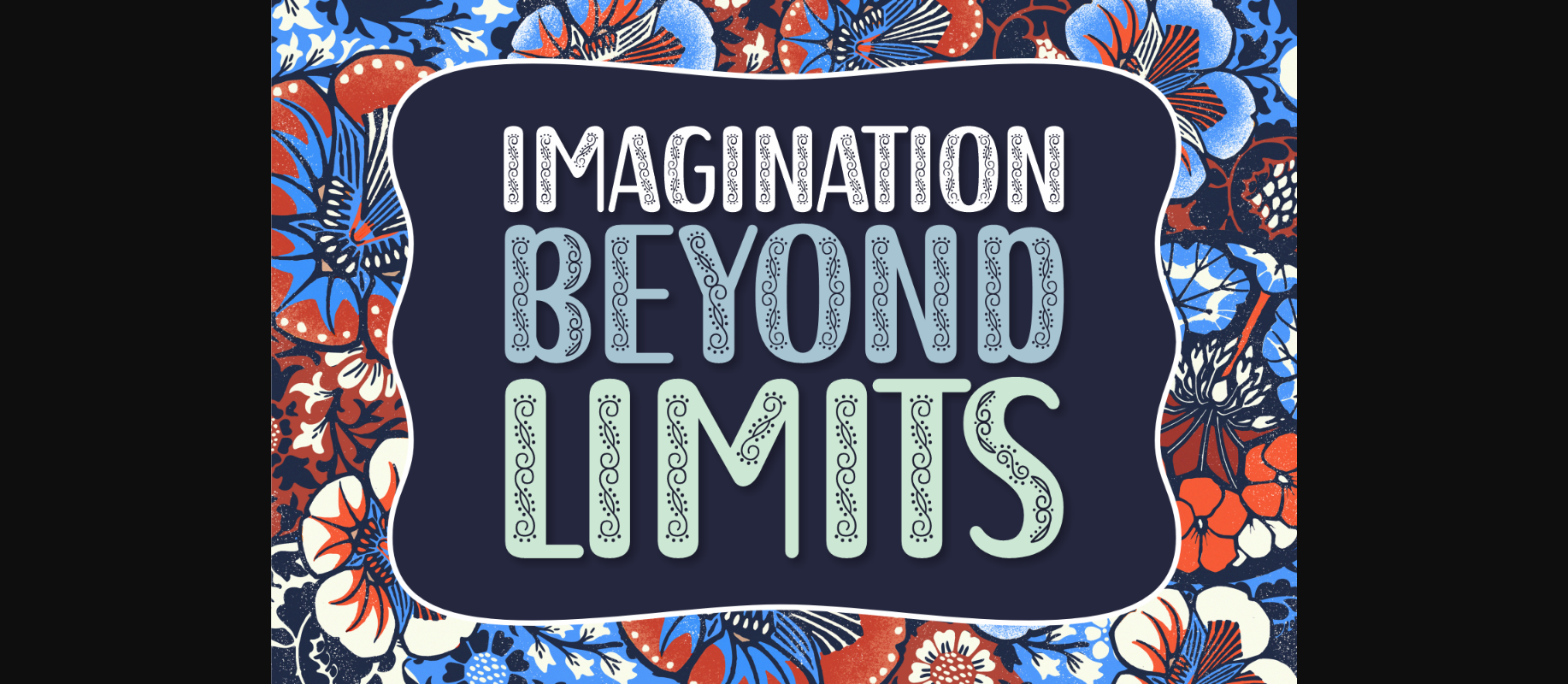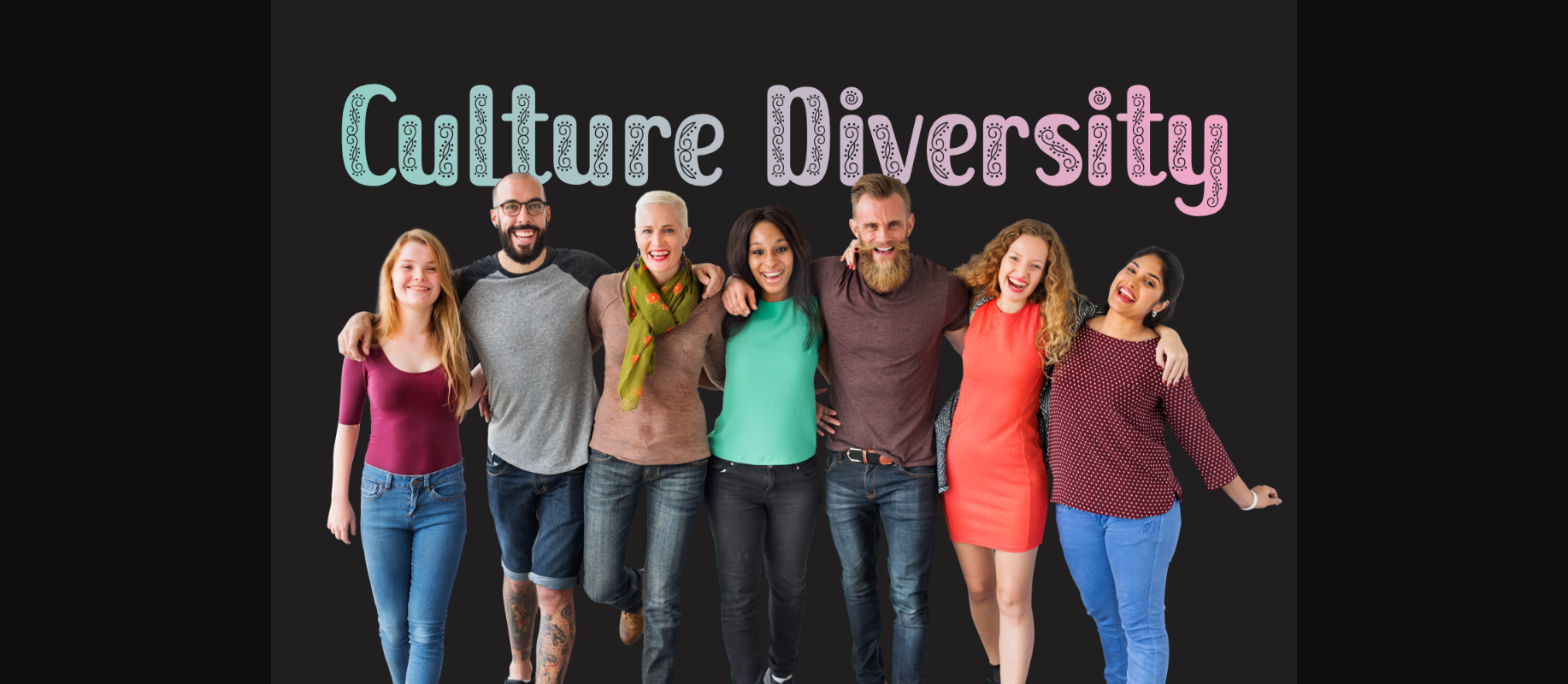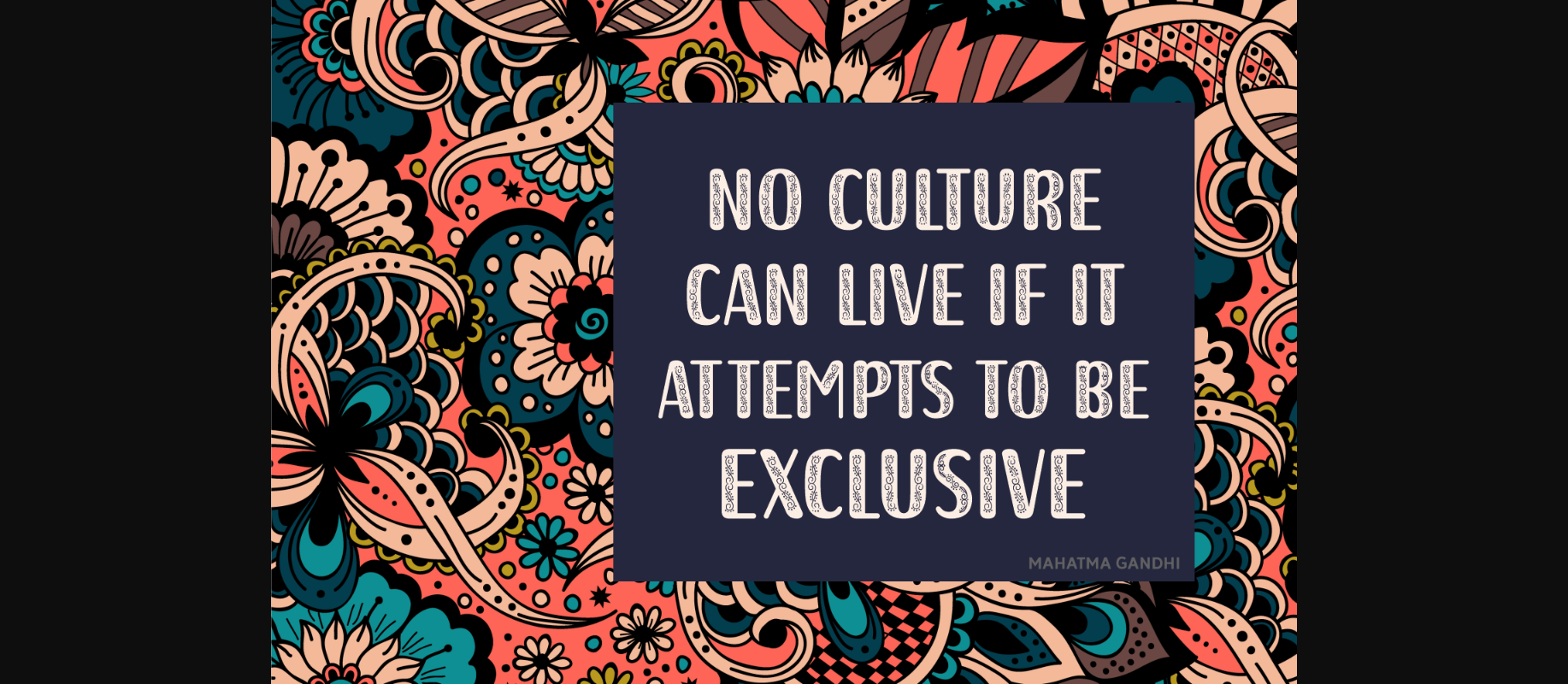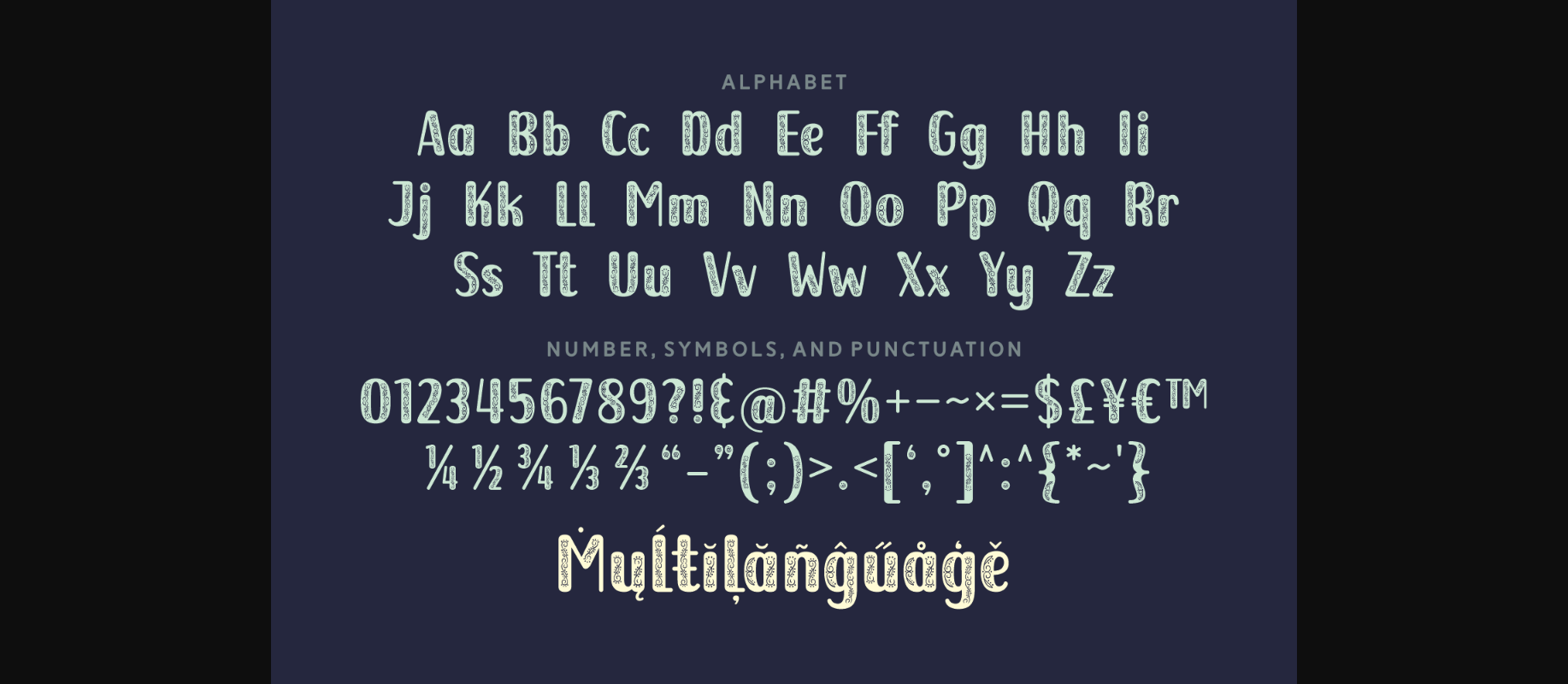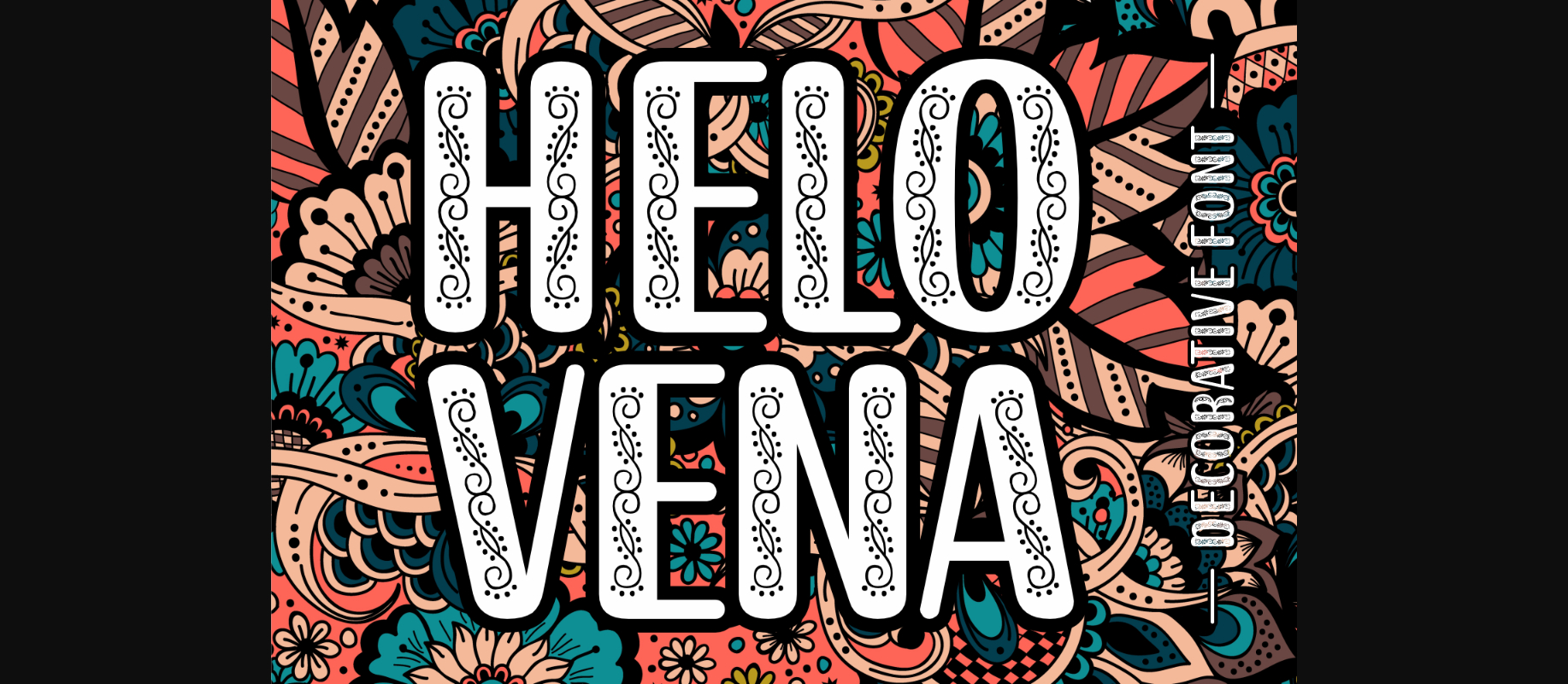
Helo Vena Font
About Helo Vena Font
Helo Vena is a beautiful decorative font with an exciting floral pattern inside the characters. This creative typeface is perfect for covers, posters, quotes, wedding designs, cards, anniversary invitations, t-shirts, art prints, etc.